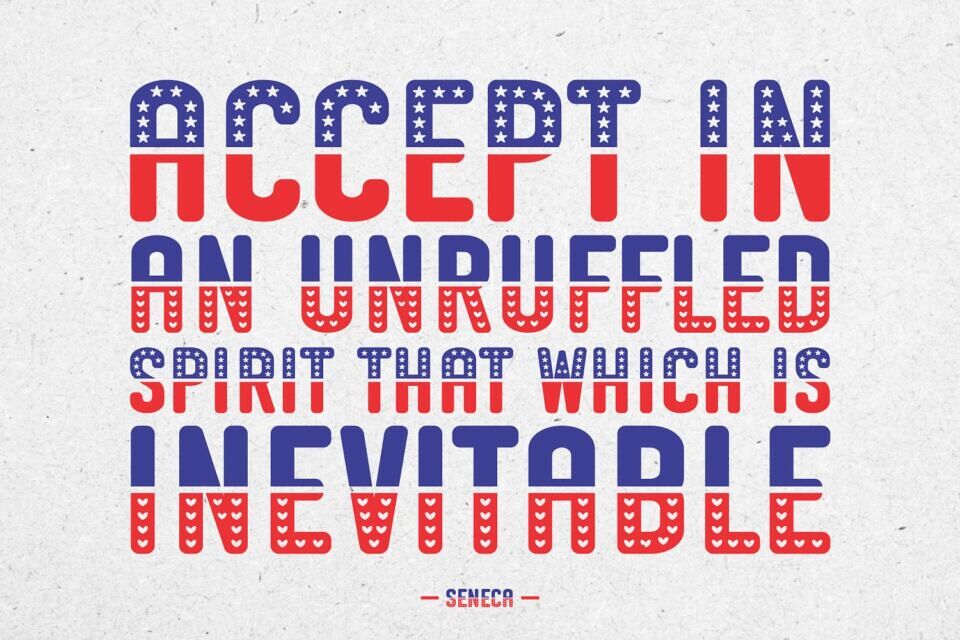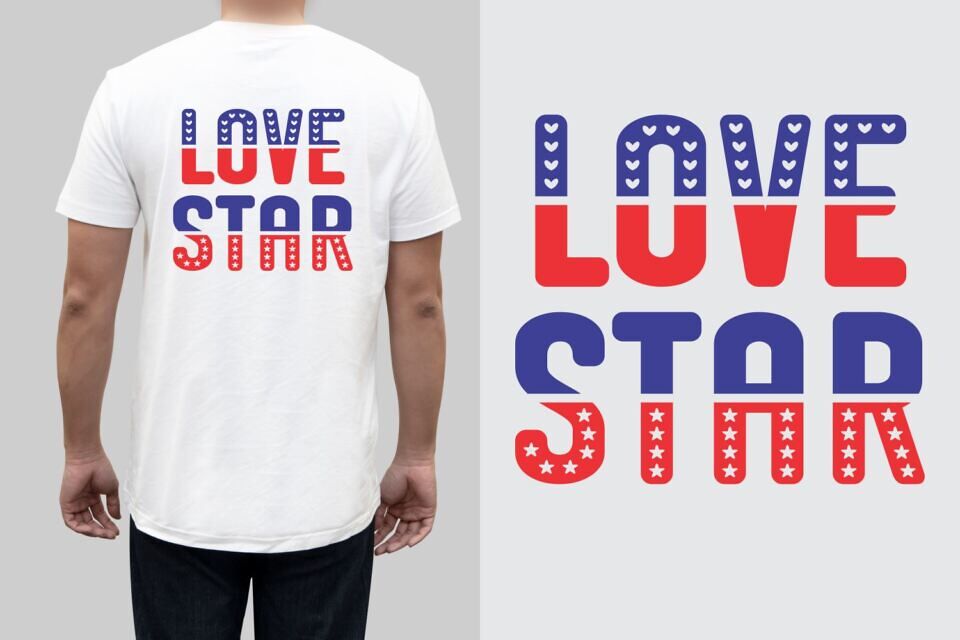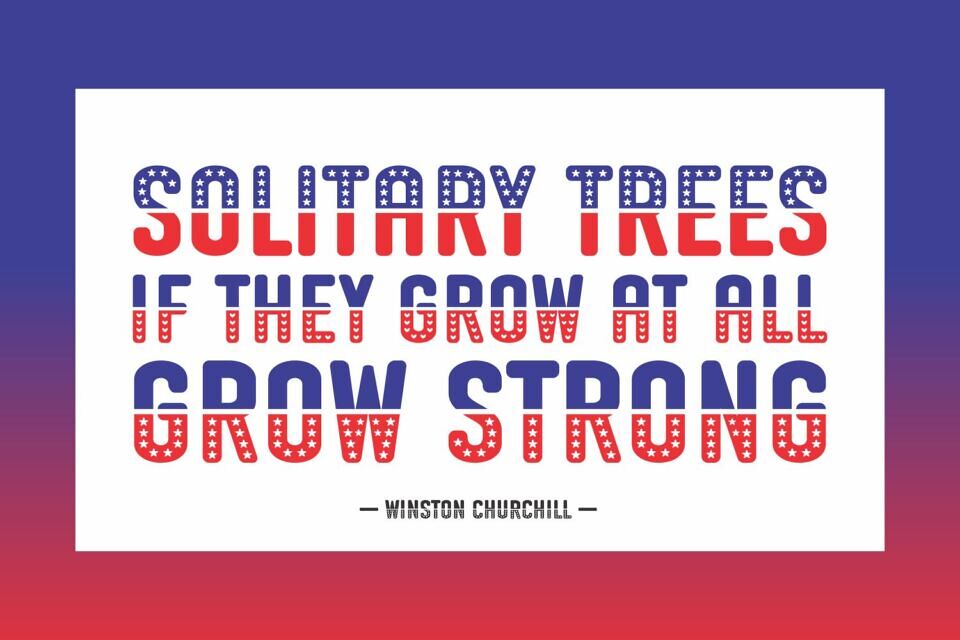
Vega Star is a cool and festive display font. Whether you’re using it for crafting, digital designing, presentations, or greeting card making, it’s perfect!